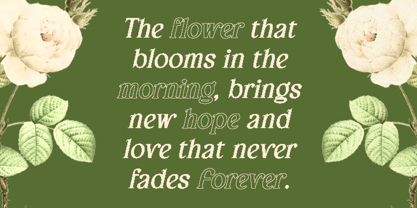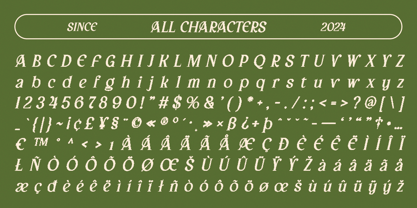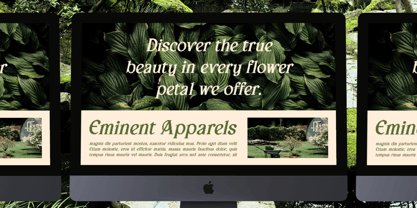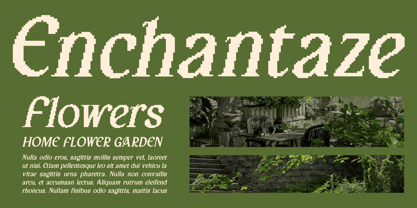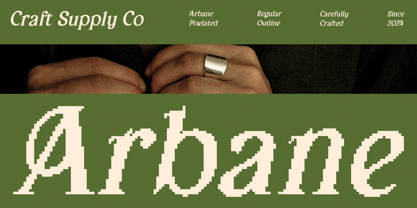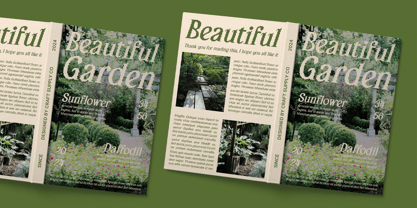
Arbane Pixel
by Craft Supply Co
The Arbane Pixel Font Family was designed by Trio Nazzar Saputra, Wahyu Hadi Yuana and published by Craft Supply Co. Arbane Pixel contains 2 styles and family package options.
Arbane Pixel: Where Art Nouveau Meets Digital Innovation
Serif Font with Pixelated Art Nouveau Shapes
Arbane Pixel combines the luxurious and artistic feel of Art Nouveau with a unique pixelated effect, creating a serif font that exudes elegance and modernity. The organic and flowing forms of Art Nouveau are wrapped in a contemporary digital touch, offering a distinctive blend of classic design and modern innovation.
Luxurious and Artistic Appeal
The Art Nouveau shapes in Arbane Pixel provide a sophisticated and artistic aesthetic, perfect for designs that require a touch of luxury and creativity. The pixel effect adds an intriguing modern dimension, making this font stand out in any design project.
Versatile for Elegant Designs
Arbane Pixel is perfect for designs that seek to blend vintage aesthetics with digital innovation. Whether you’re creating wedding invitations, luxury branding, art posters, or any creative project, this font offers an elegant yet modern appearance, ensuring your work is both captivating and sophisticated.